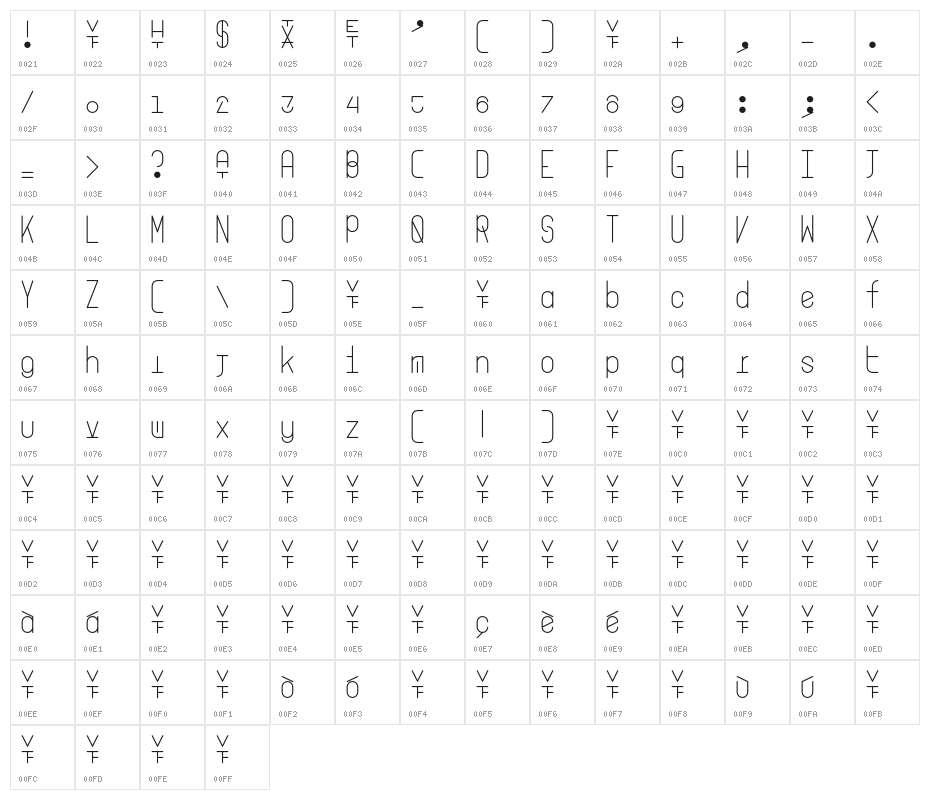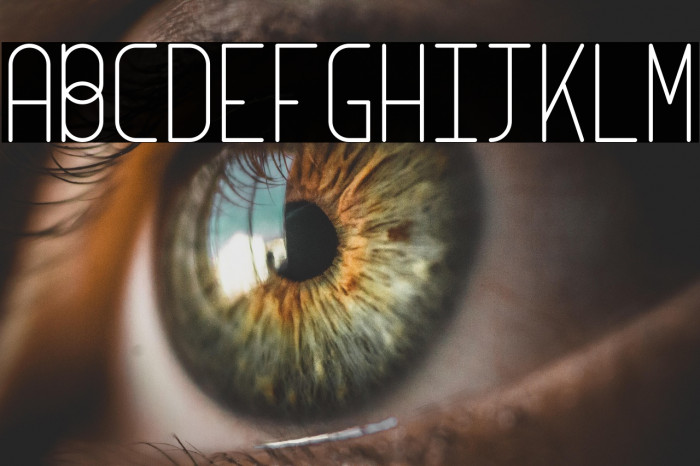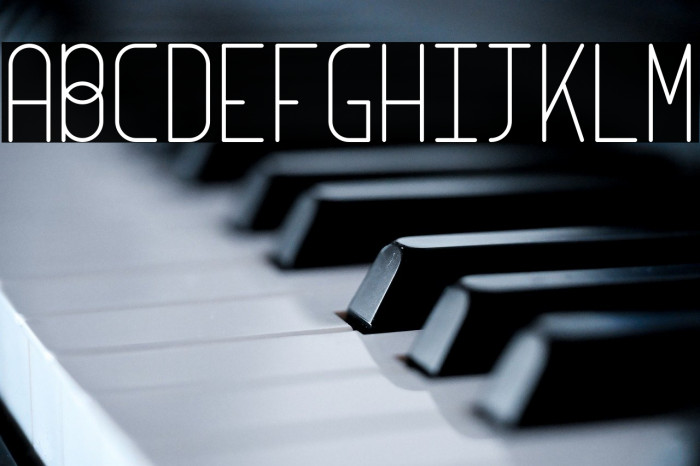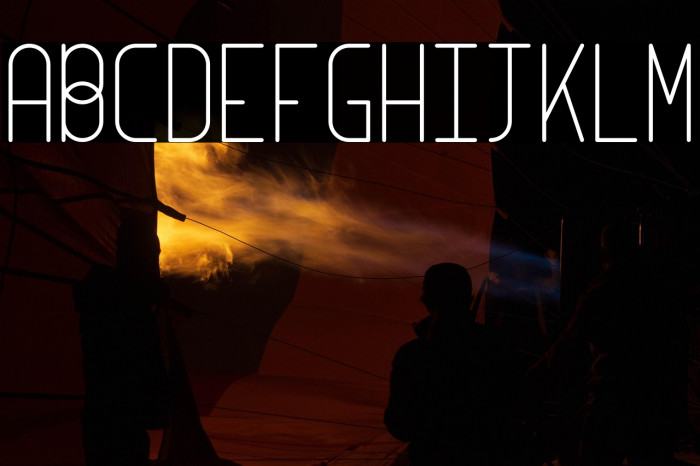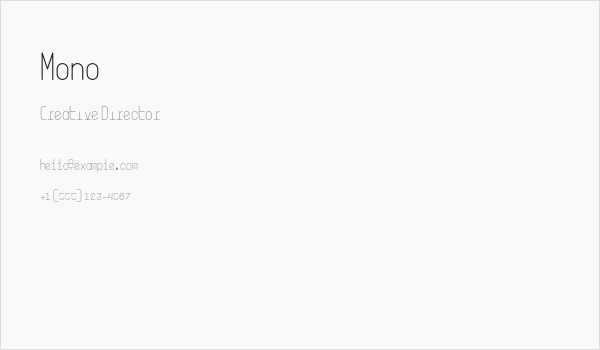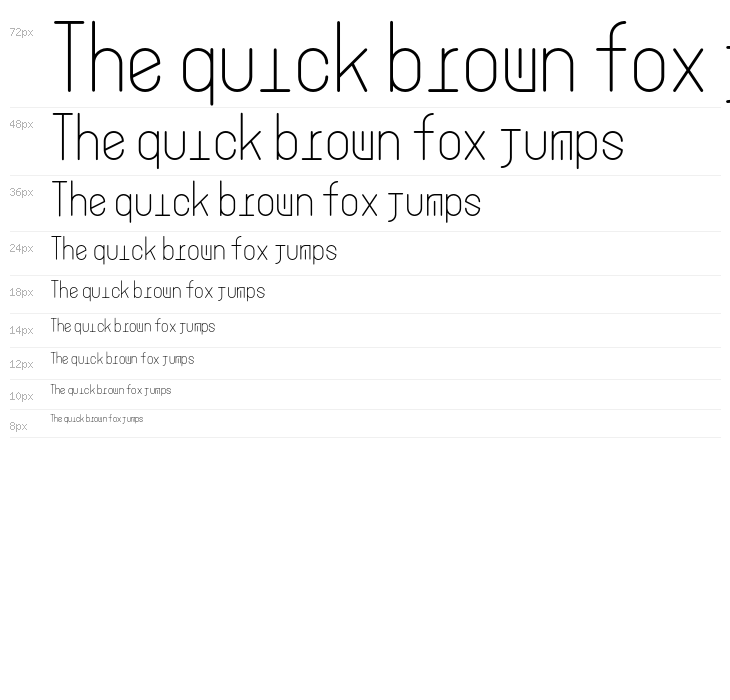
Mono Font
Mono Description
This font features a modern, monospaced design with a geometric and minimalist aesthetic. Each character is crafted with consistent width, giving it a uniform appearance. The uppercase letters are tall and narrow, while the lowercase letters maintain a similar height, creating a cohesive look. The numerals are clear and distinct, ensuring readability. Special characters are uniquely styled, adding a touch of creativity to the overall design. The thin strokes and open counters contribute to a clean and uncluttered appearance, making it suitable for various digital applications.
| Use Case | Coding, Technical documentation, Branding |
| Proposed Projects | Ideal for coding environments, technical documentation, and modern branding projects. |